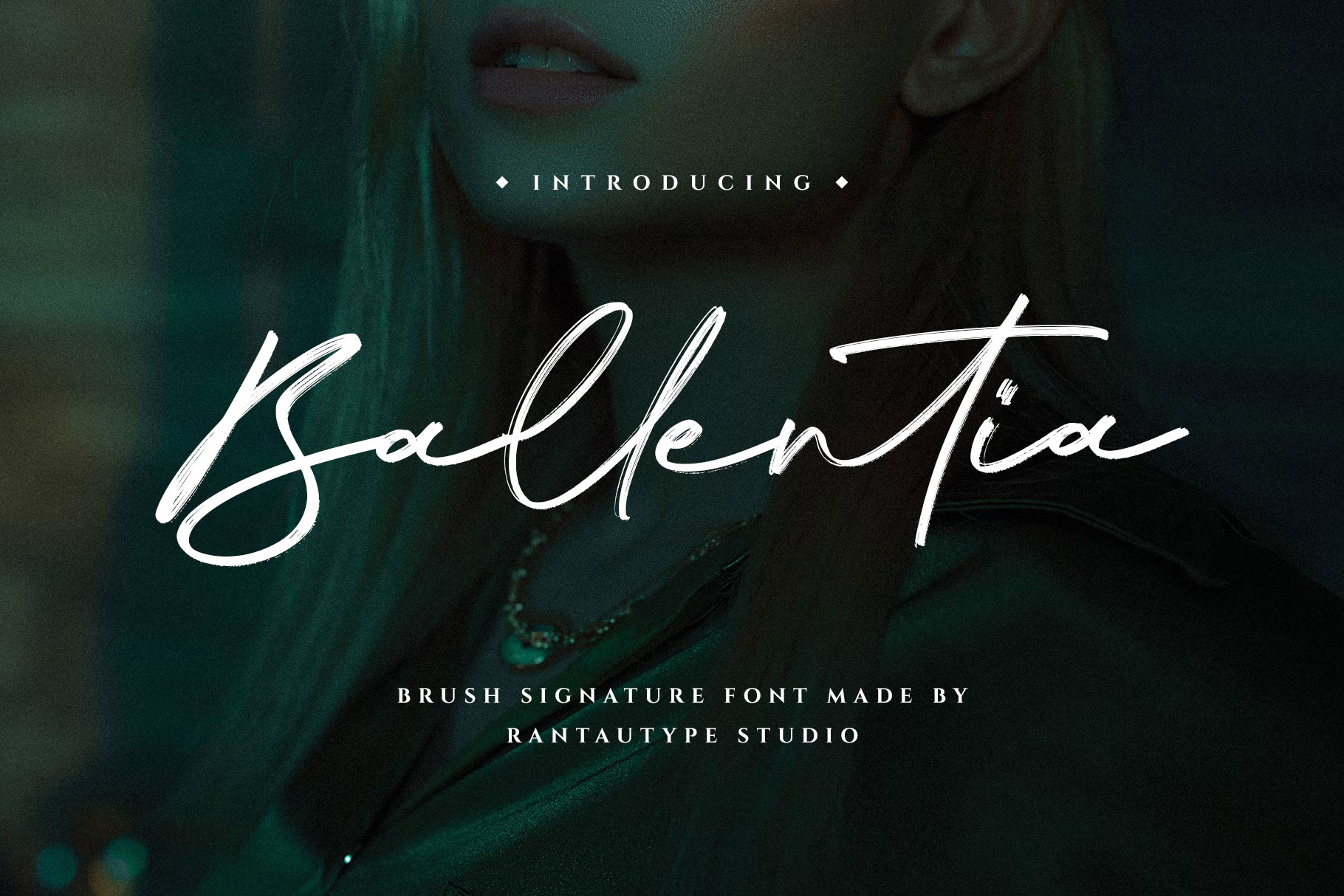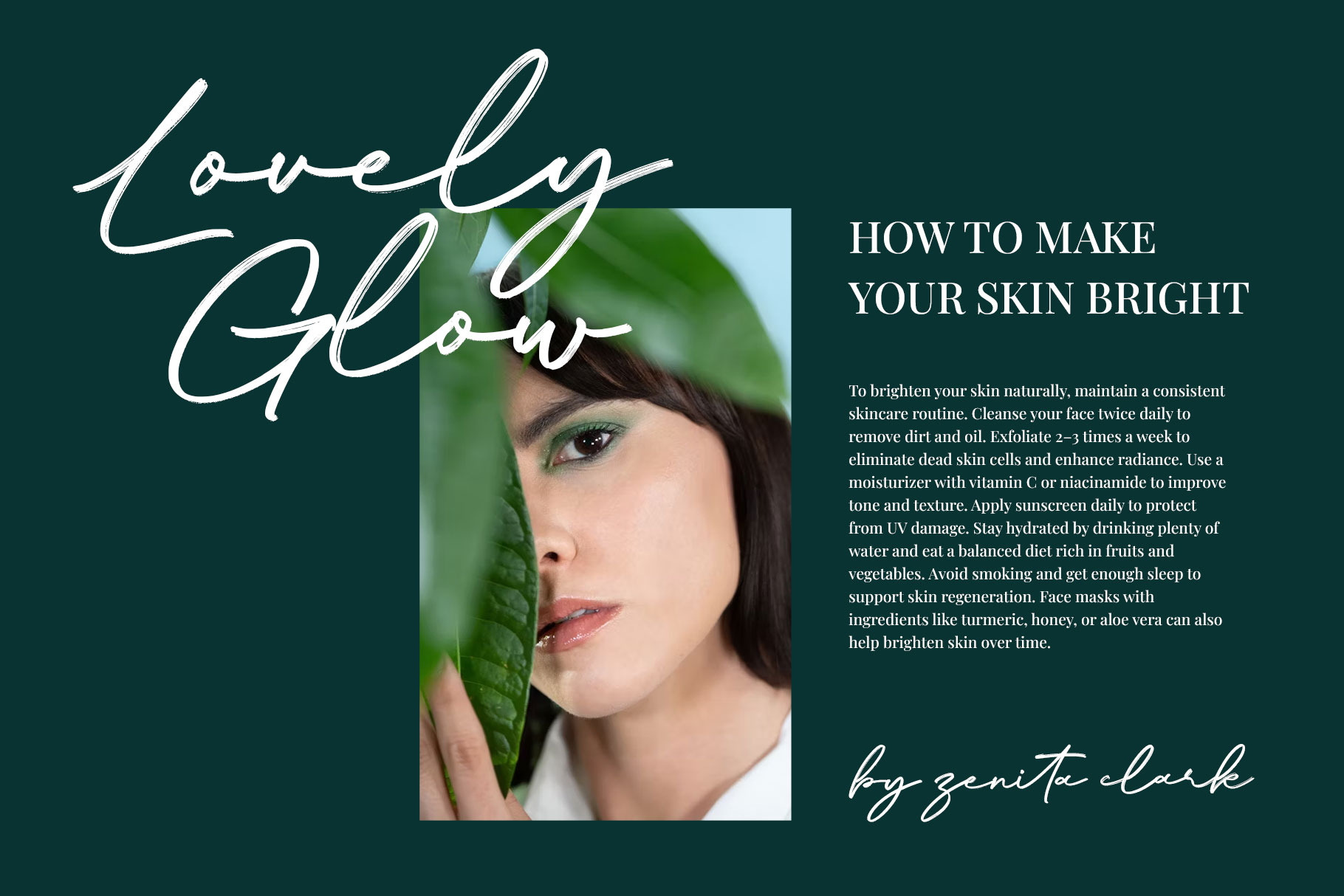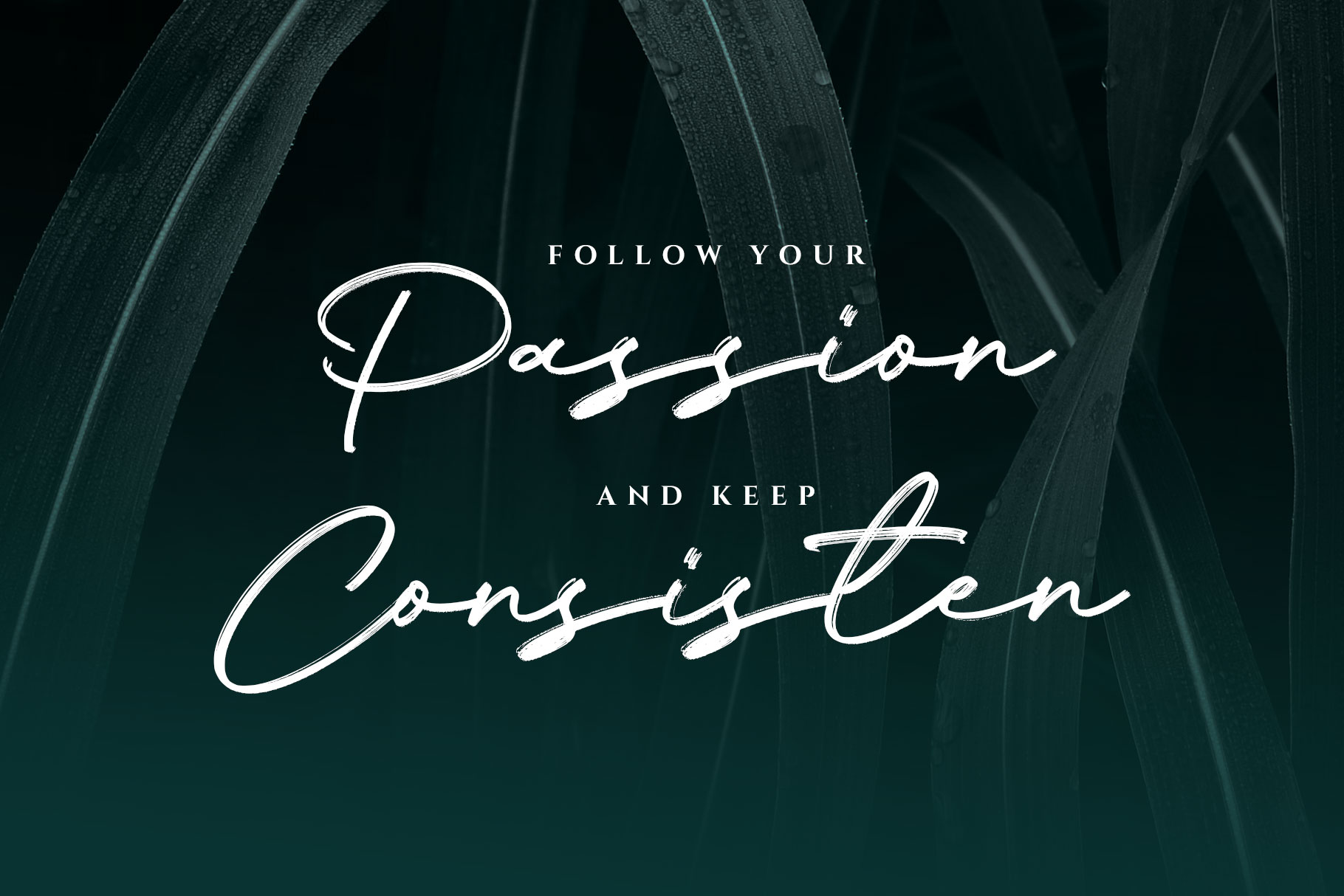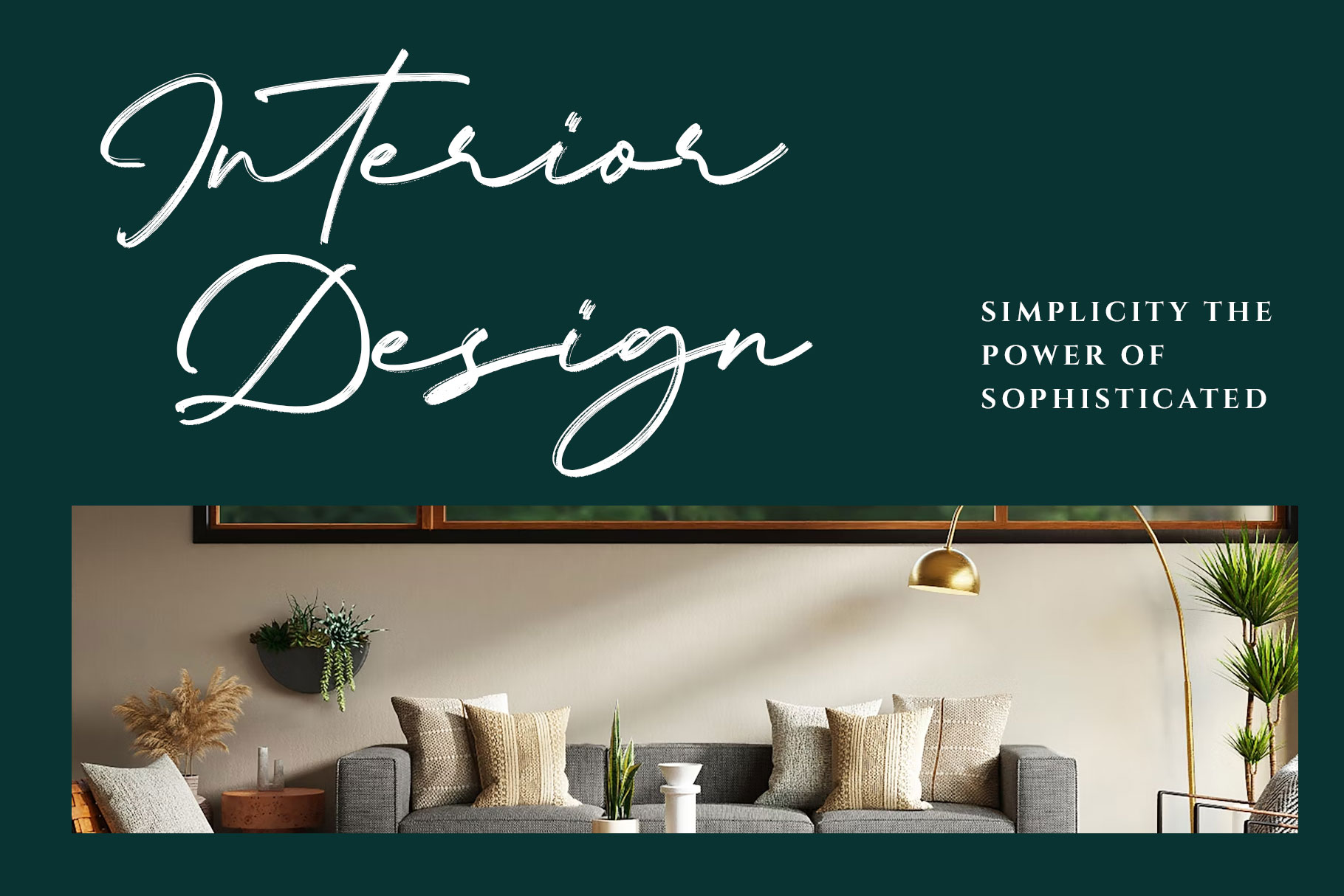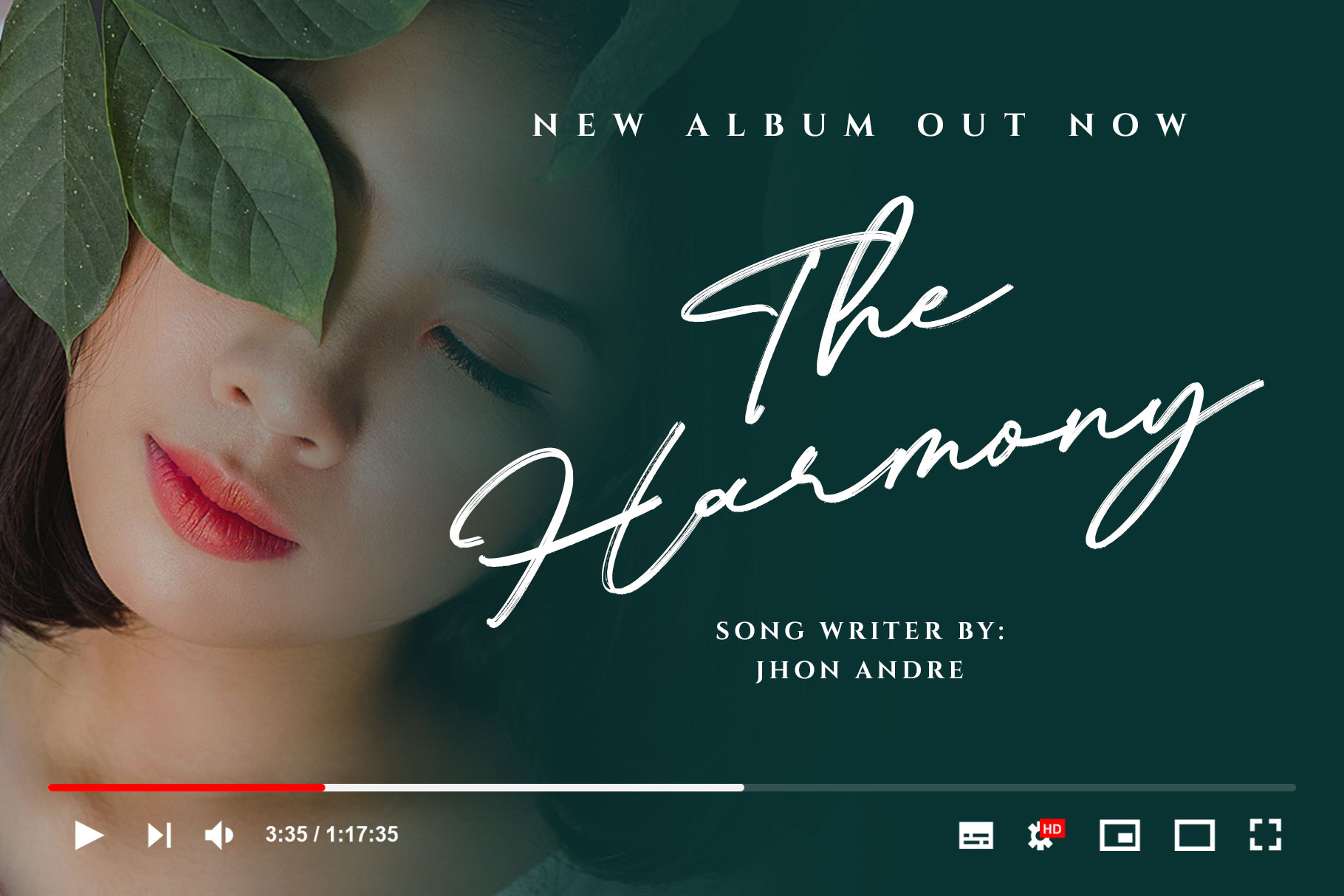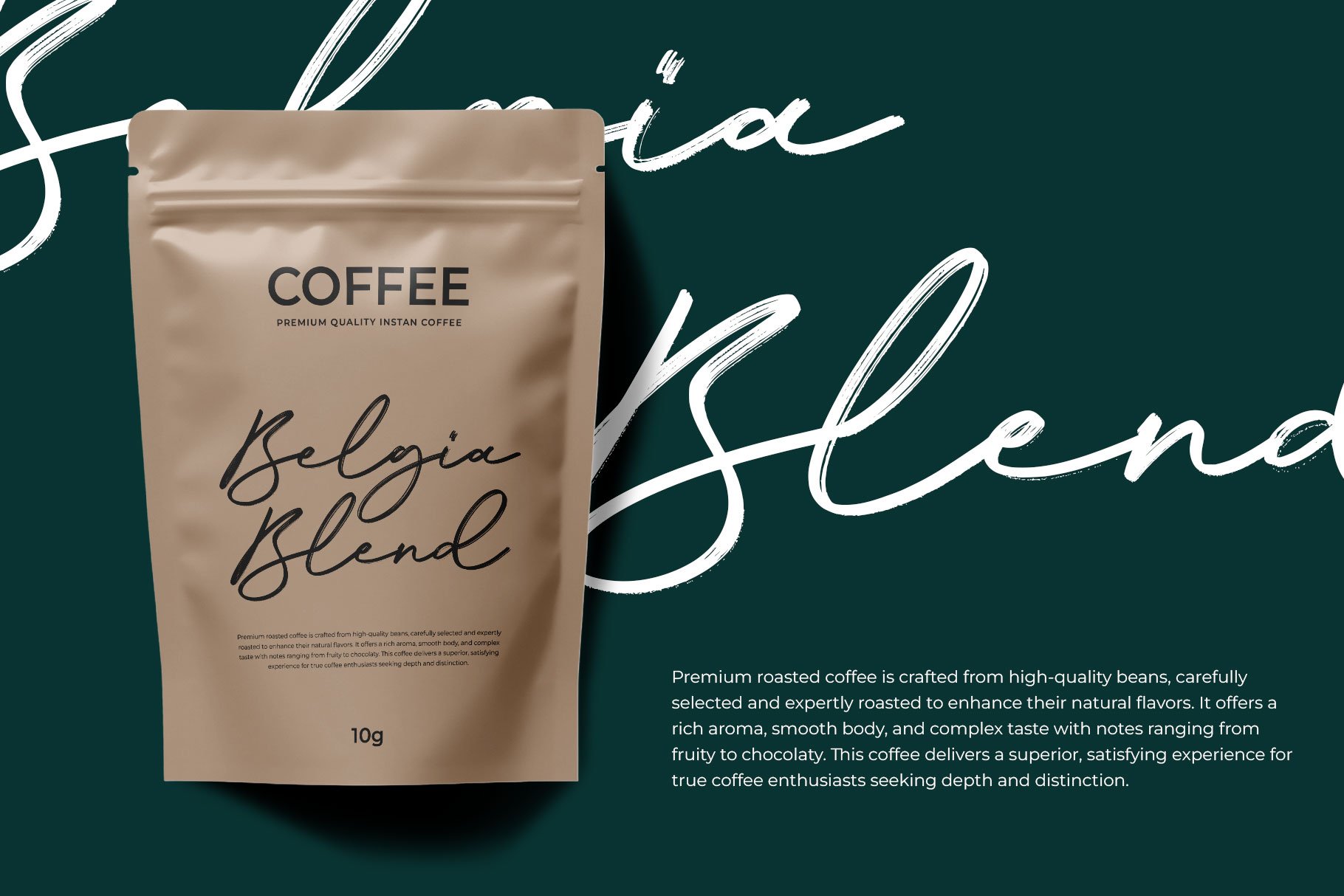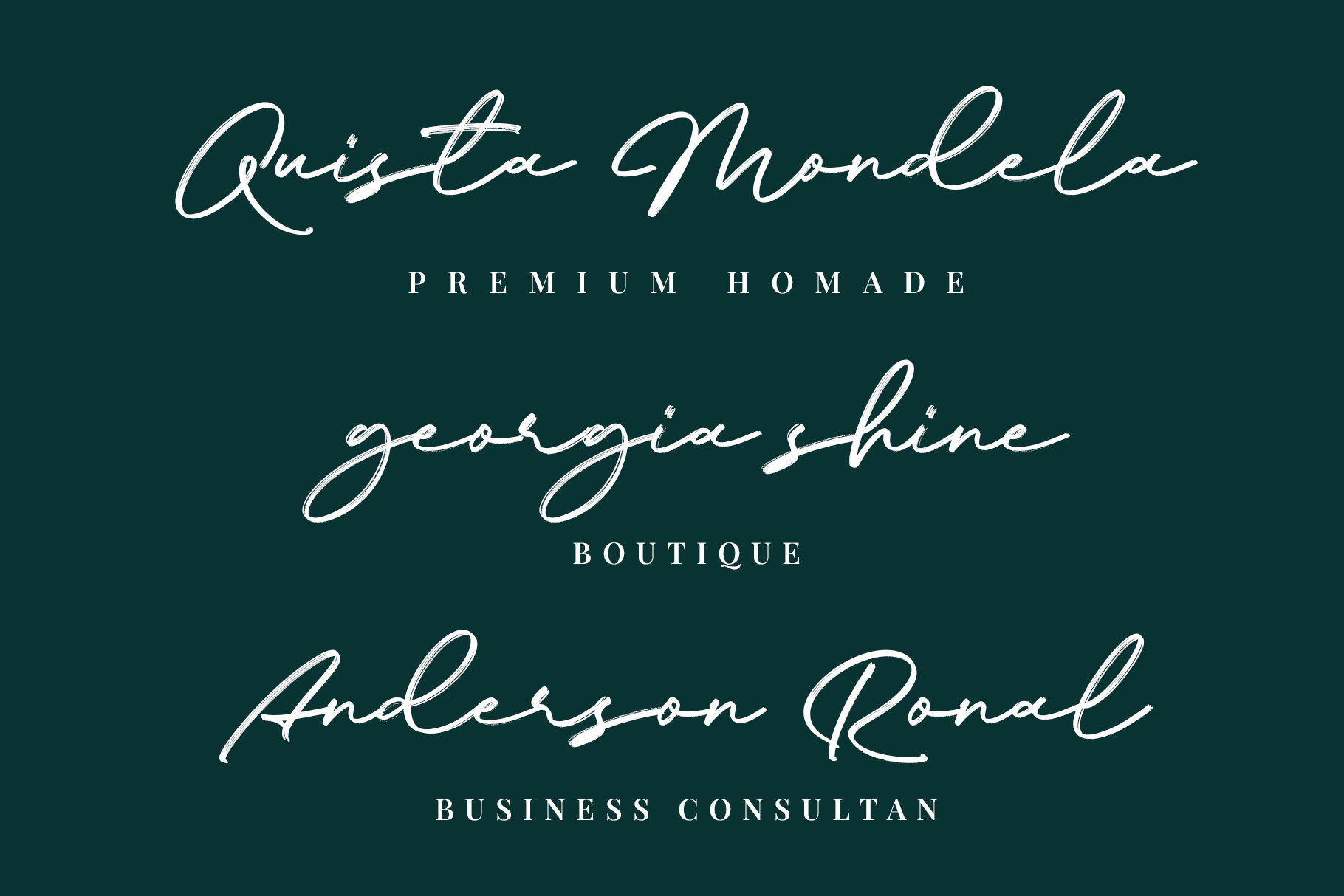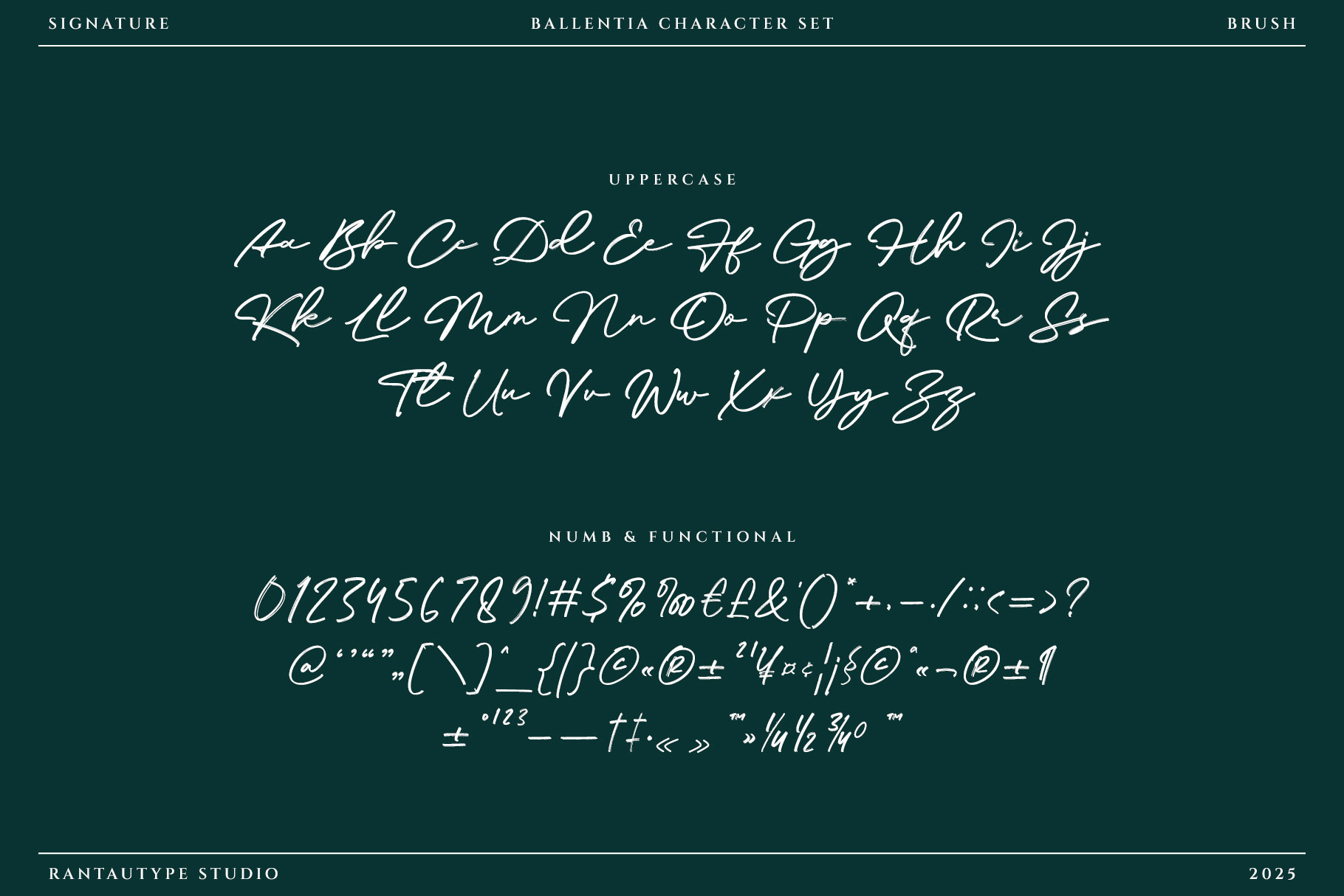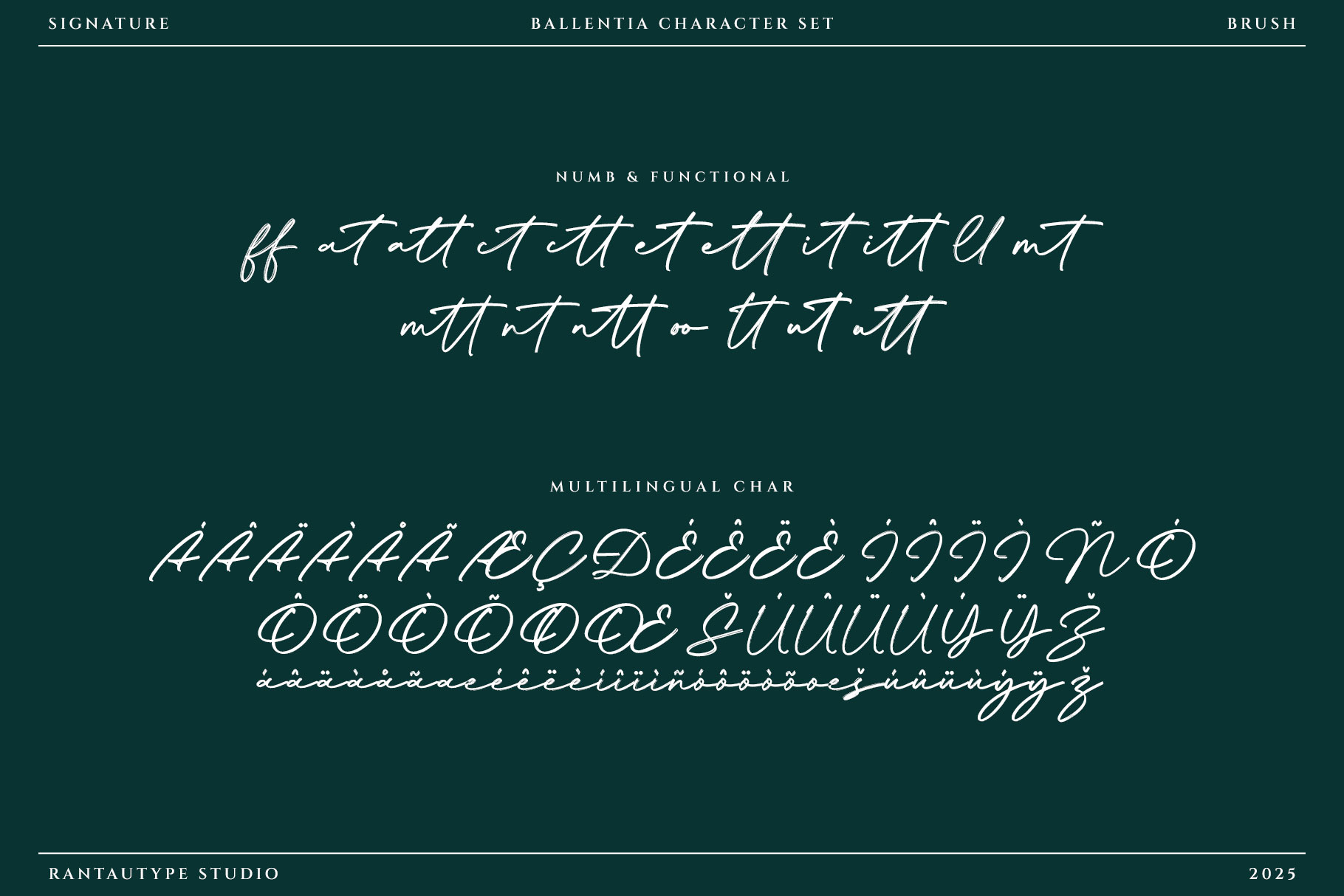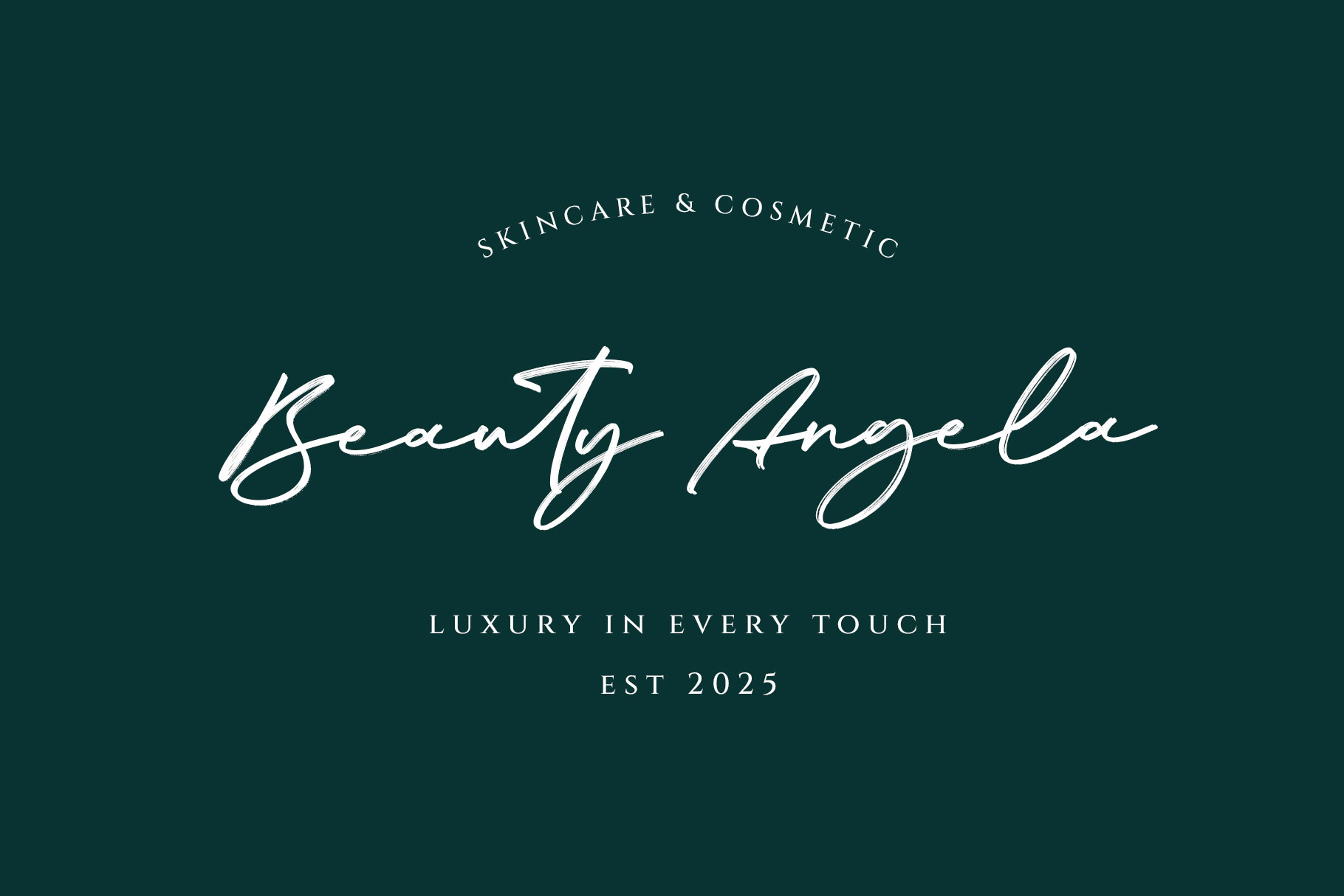
Ballentia Brush Signature Font
Ballentia is a stylish handwritten typeface that mimics the natural flow of ink on paper created with a brush pen. Ballentia come with fluid strokes and elegant curves, it adds a personal artistic touch to any design.